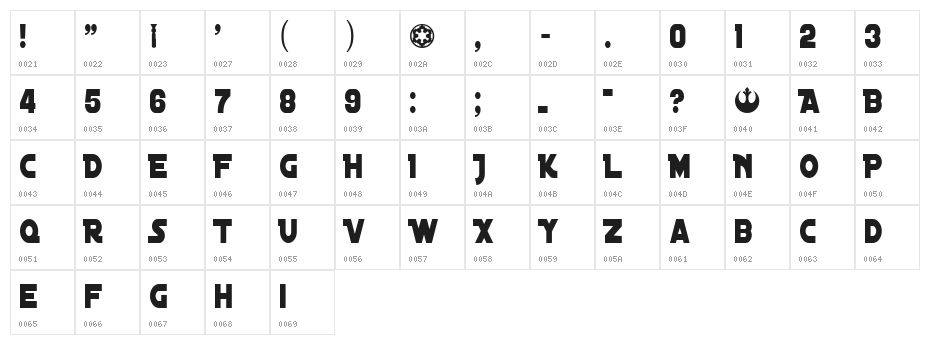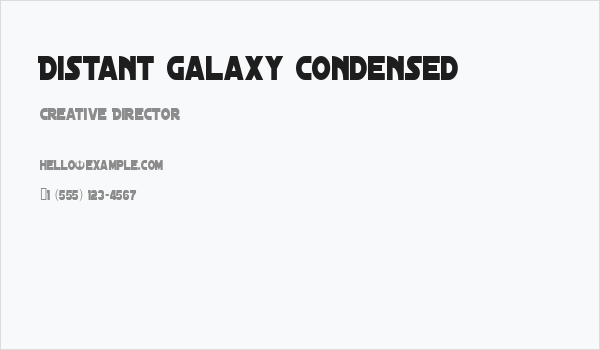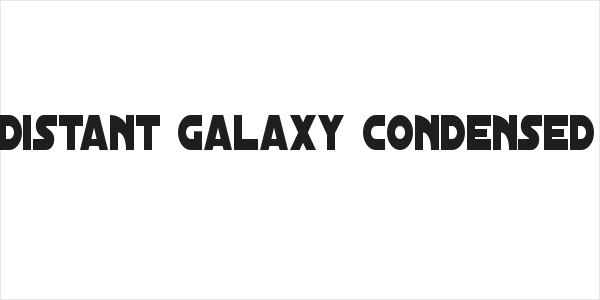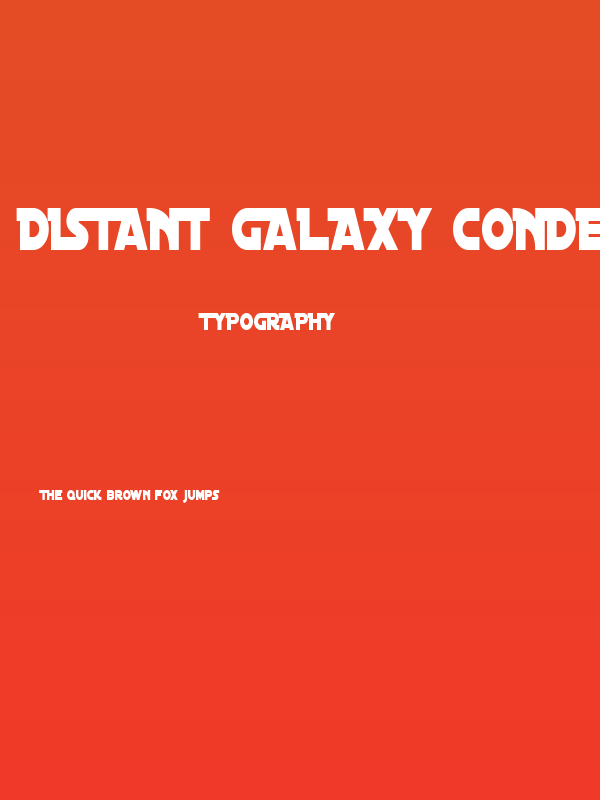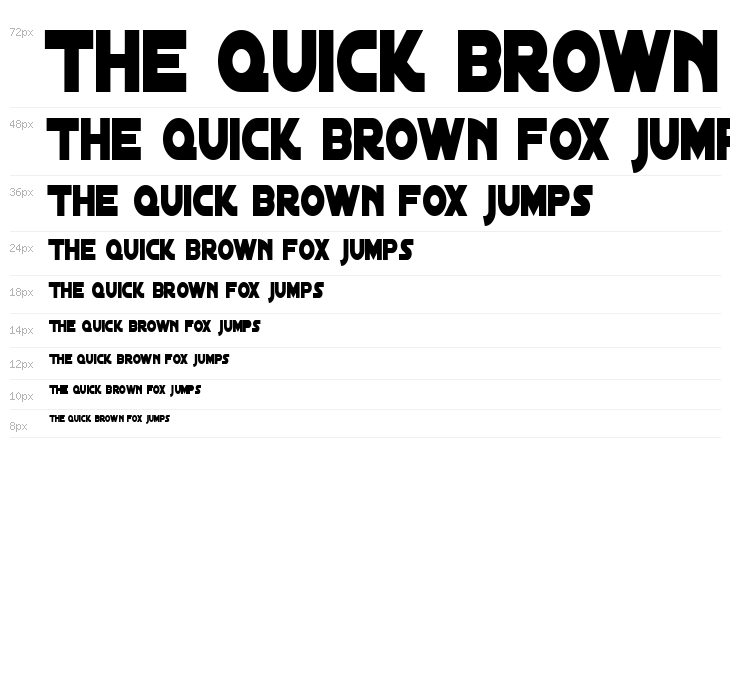
Distant Galaxy Condensed Font
Distant Galaxy Condensed Description
This font features a bold, futuristic design with a condensed structure, making it ideal for space-themed or sci-fi projects. The characters are blocky and geometric, with sharp angles and a consistent stroke width that conveys a sense of strength and modernity. The uppercase letters are particularly striking, with a uniform height and width that enhances readability. The numbers and special characters maintain the same bold aesthetic, ensuring a cohesive look across all text elements. This font's unique style is perfect for capturing attention and making a statement.
| Proposed Projects | Ideal for sci-fi movie posters, video game titles, and futuristic branding. |